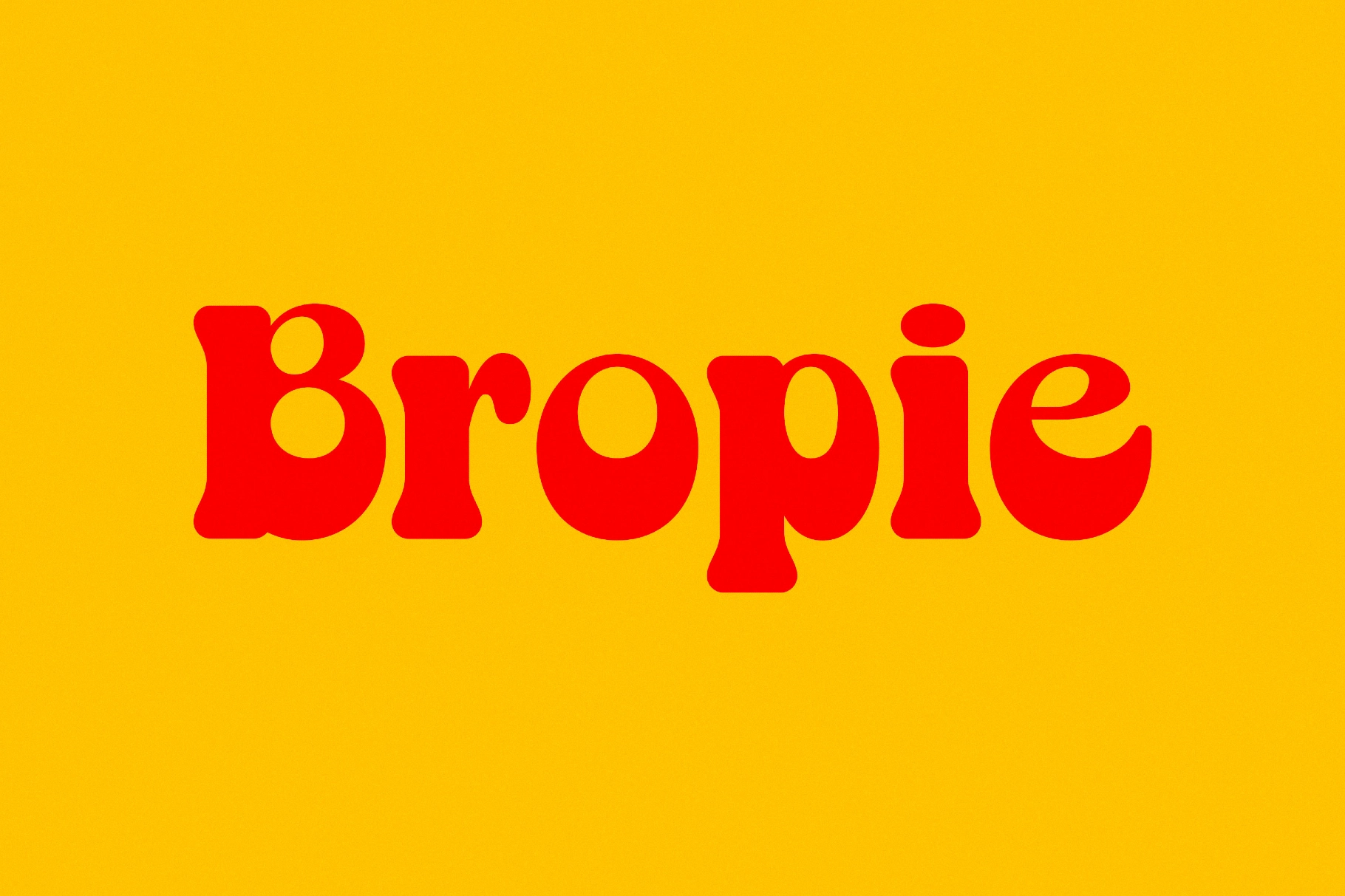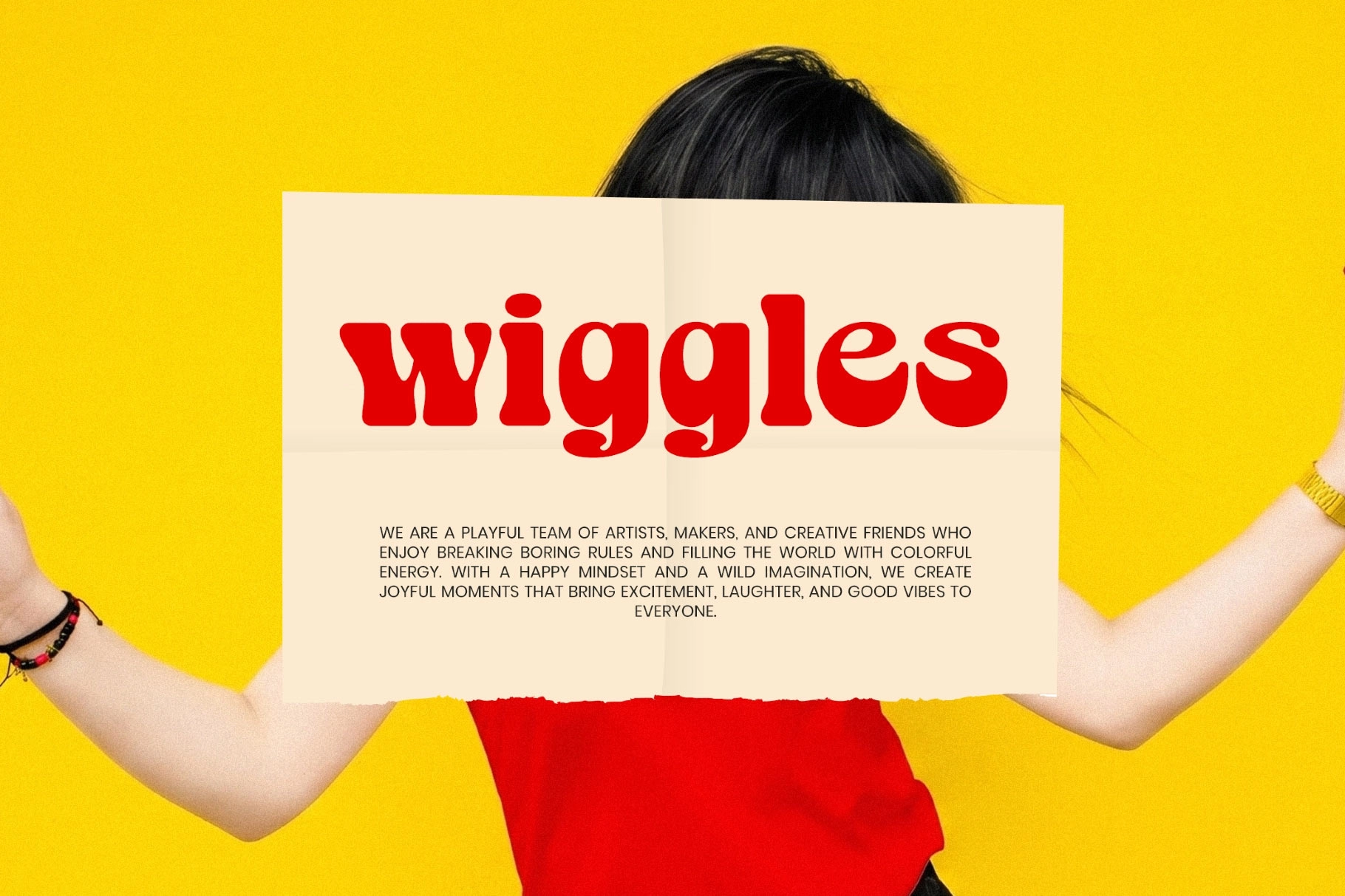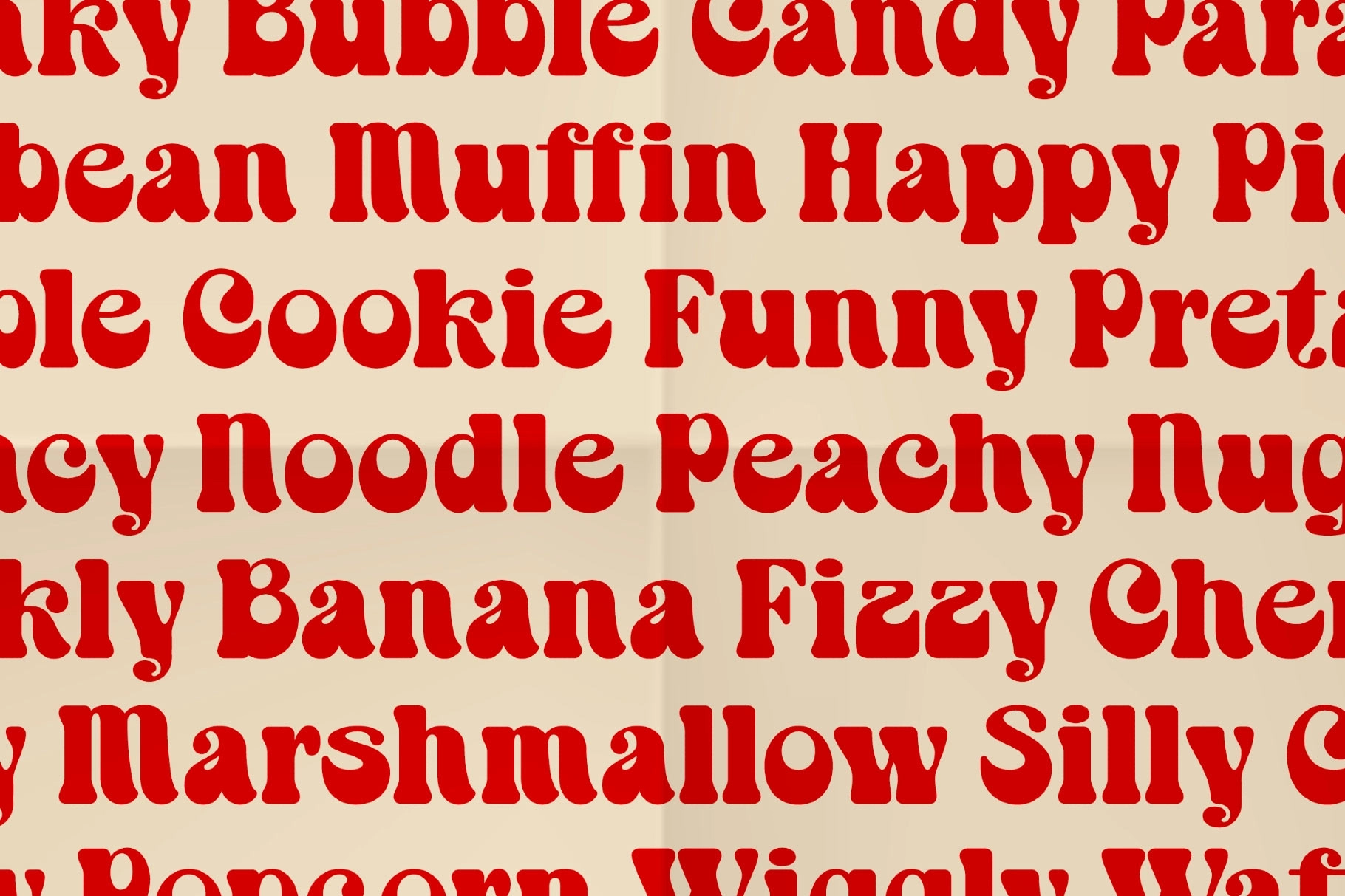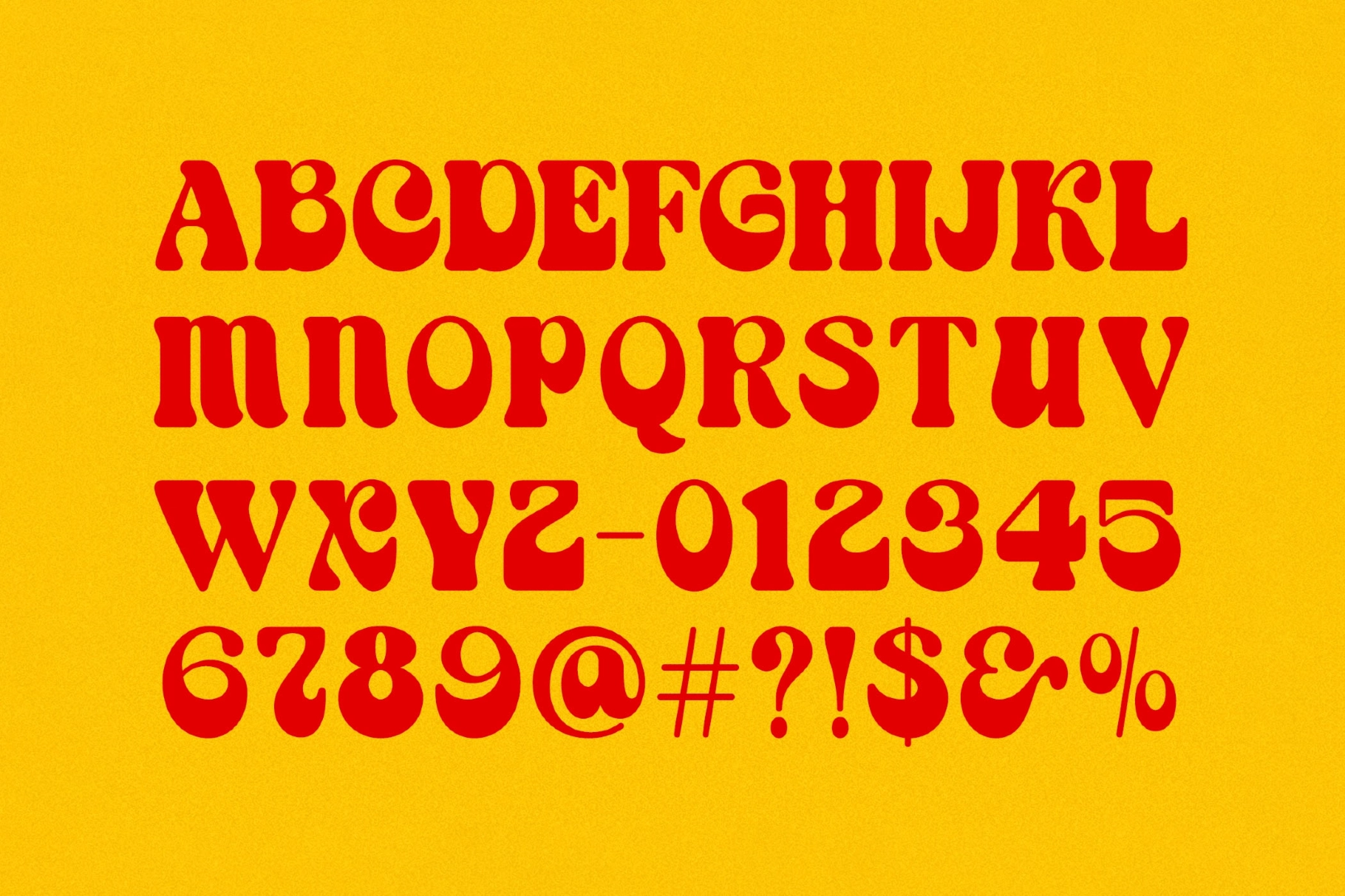
Bropie - Bold Groovy Display Font
Bropie stacks round, bulbous serifs on top of thick strokes, giving every letter a bouncy, inflated look straight out of a 70s candy wrapper — a bold groovy font built for headlines that want to grab attention rather than blend in.
Use it for food and snack branding, kids products, packaging, posters, social graphics, and playful logo lockups. The alternate letterforms swap in looser, curlier shapes for select letters when a headline wants extra bounce.
- alternate letterforms;